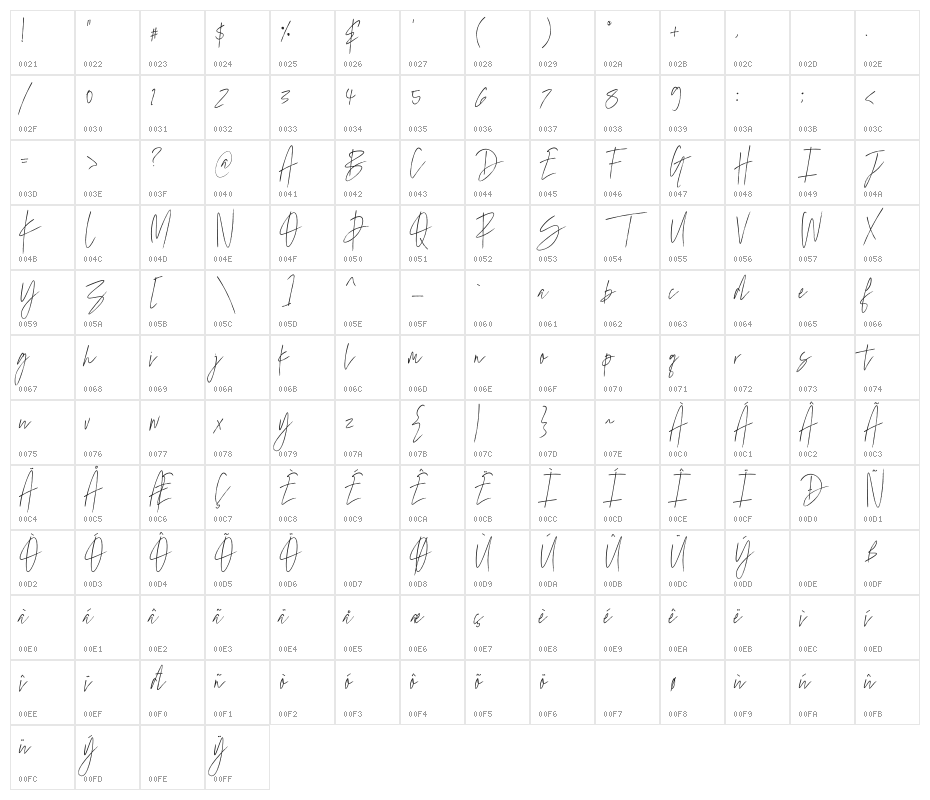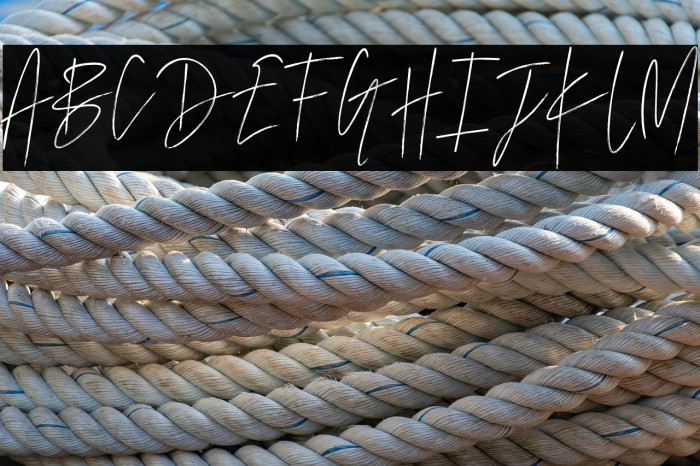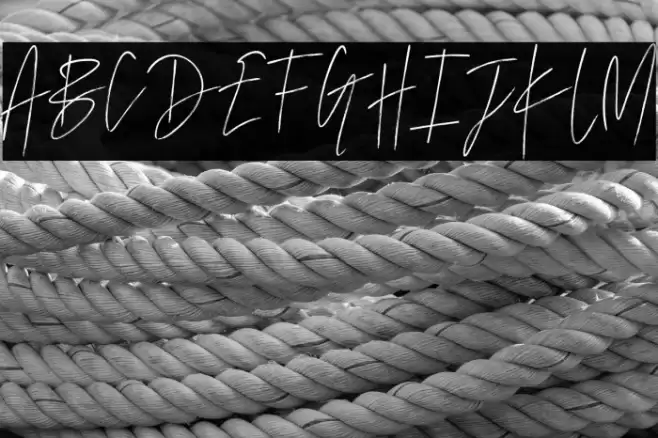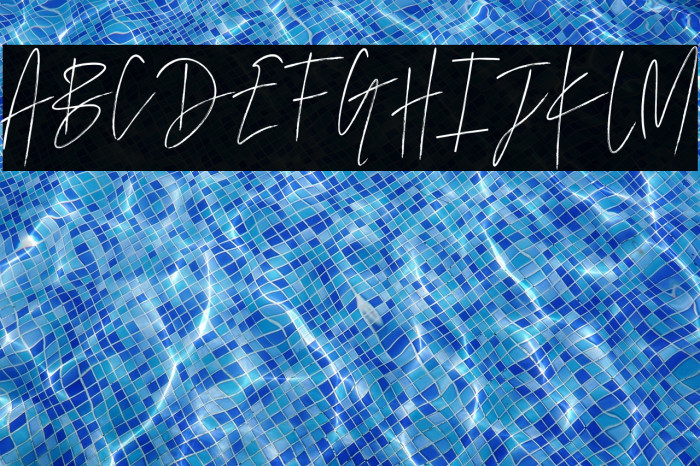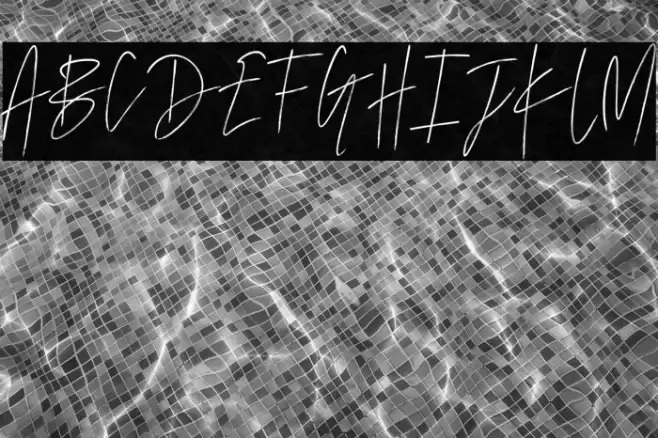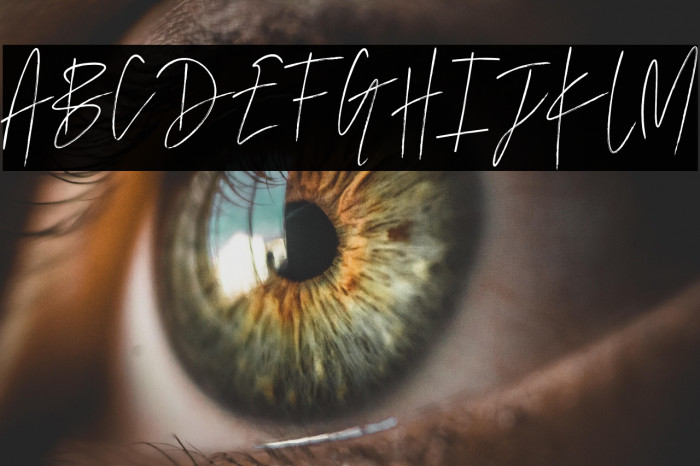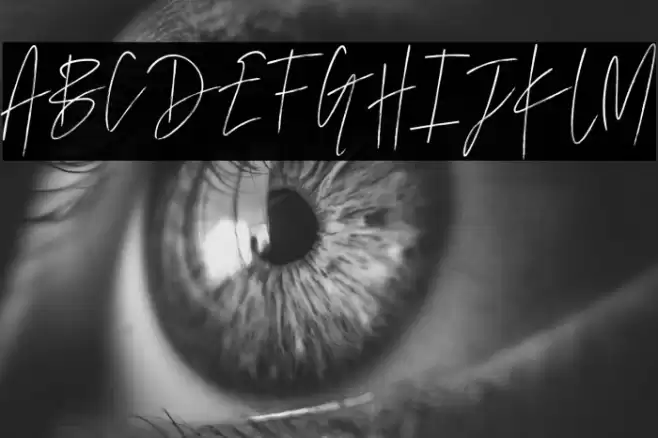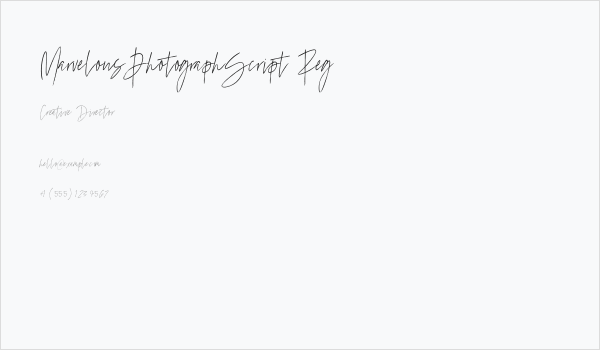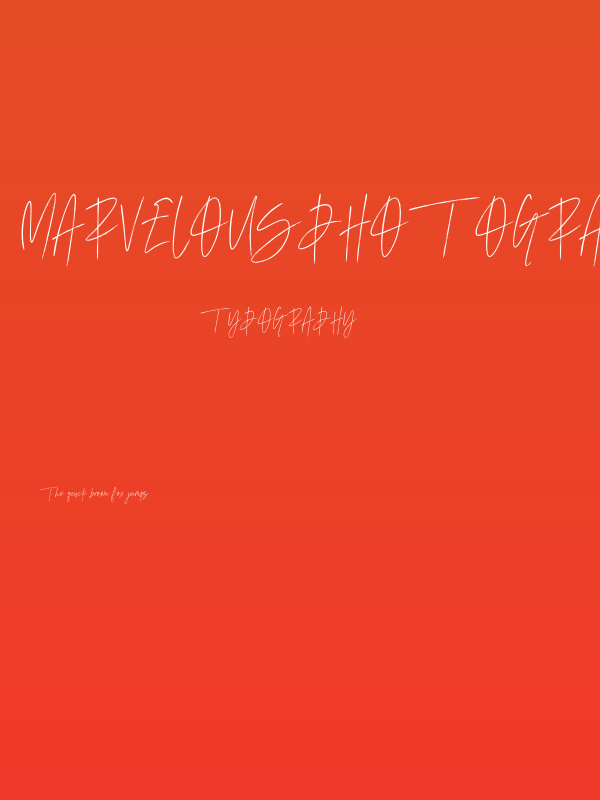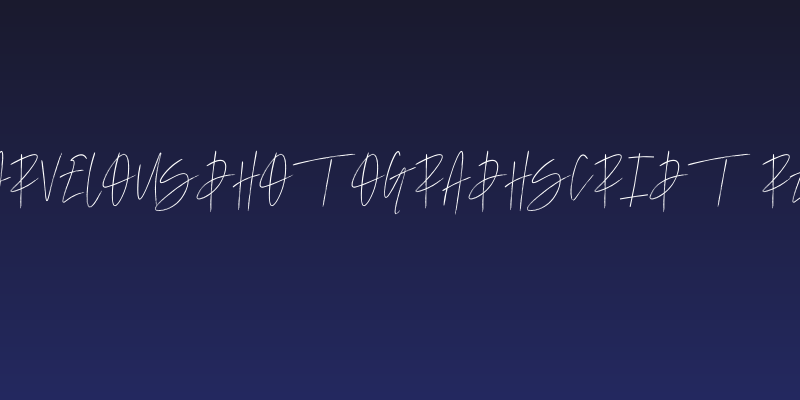
MarvelousPhotographScript-Reg Font
MarvelousPhotographScript-Reg Description
This font exudes a lively and spontaneous character, reminiscent of a handwritten script. The letters are elegantly elongated with a natural flow, capturing the essence of a personal touch. The strokes vary in thickness, adding a dynamic and energetic feel. The uppercase letters maintain a consistent height, while the lowercase letters exhibit a playful bounce, enhancing the font's informal and approachable style. Numbers and special characters are crafted with the same fluidity, ensuring a cohesive look across all elements.